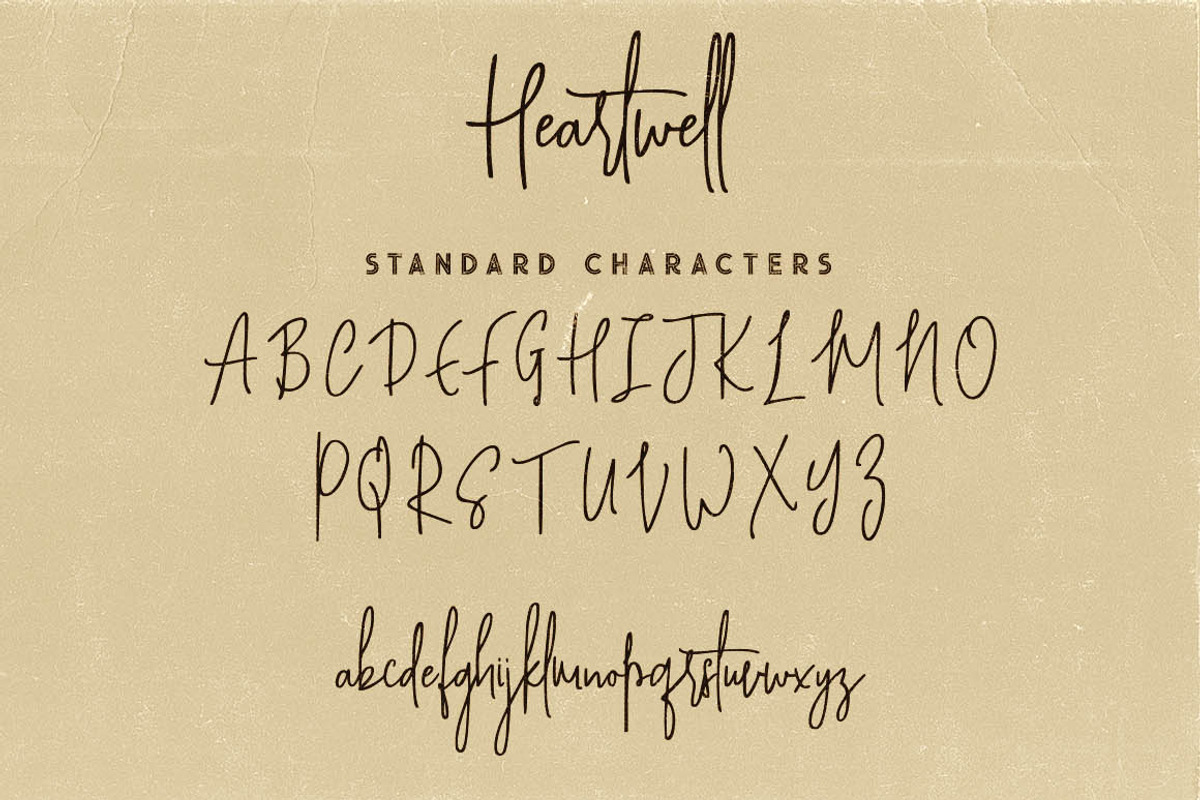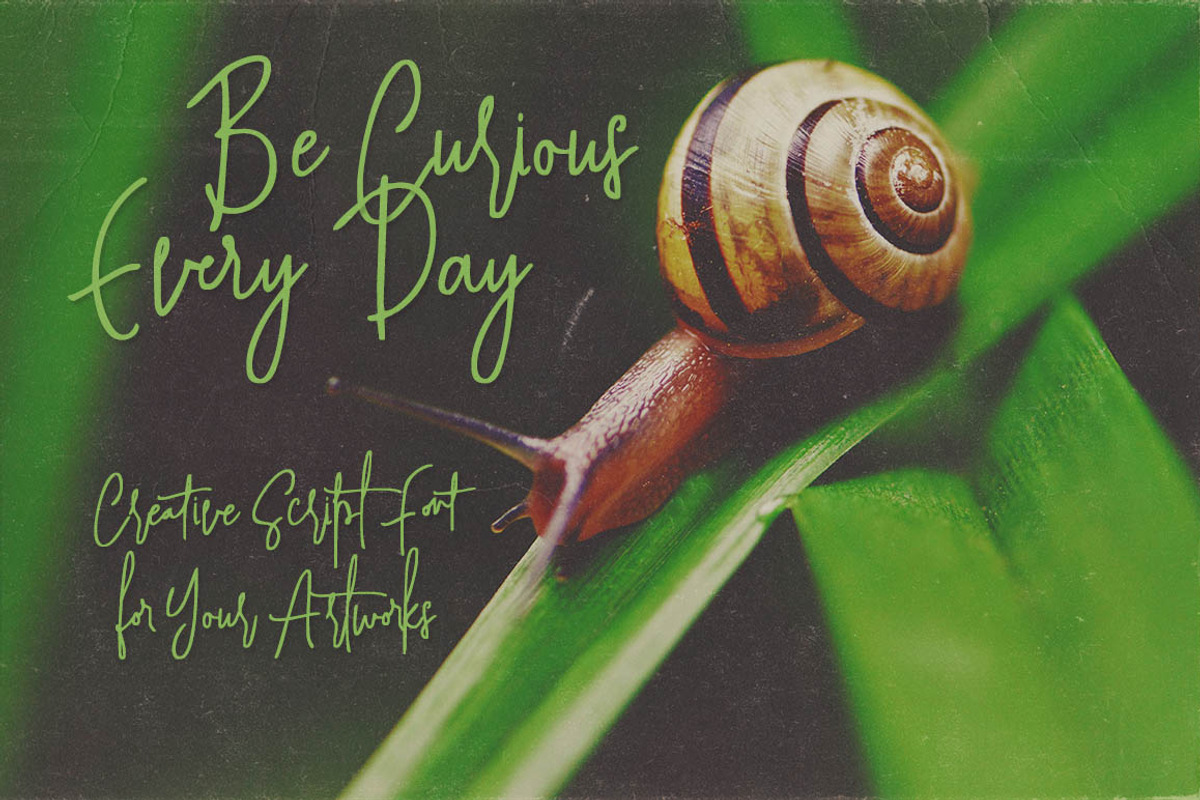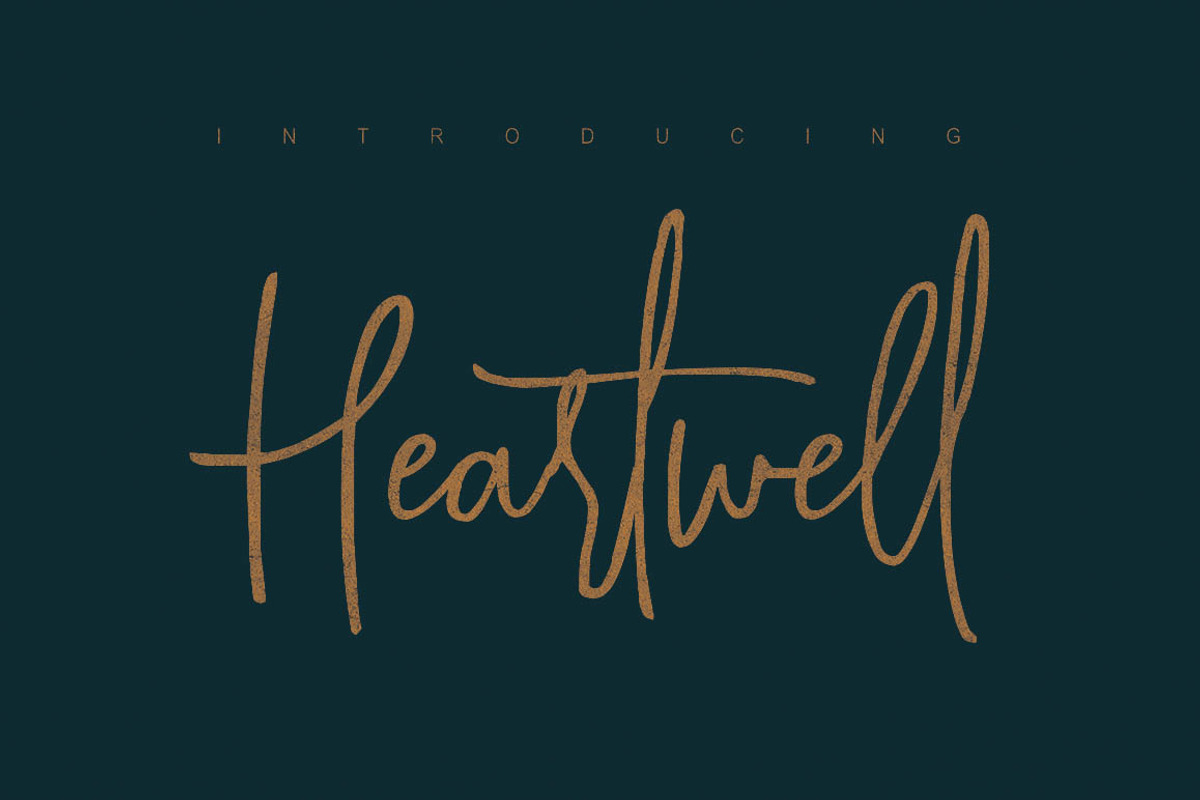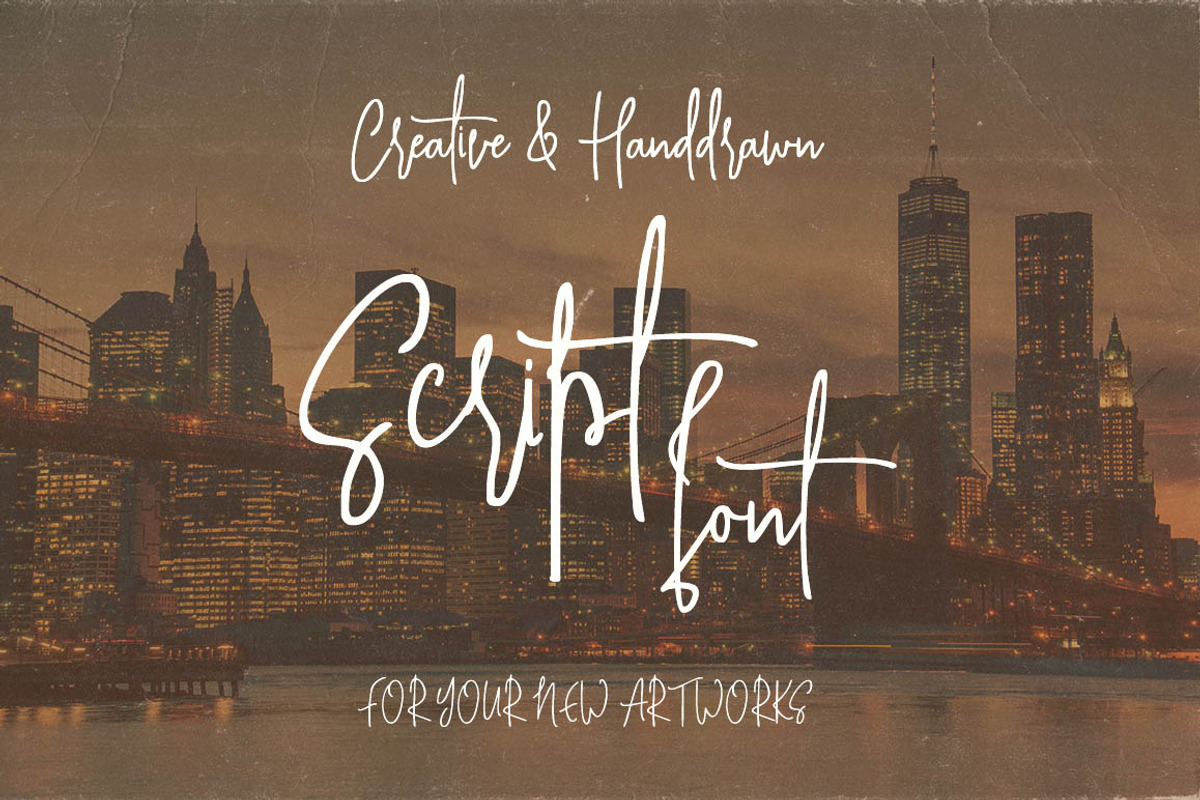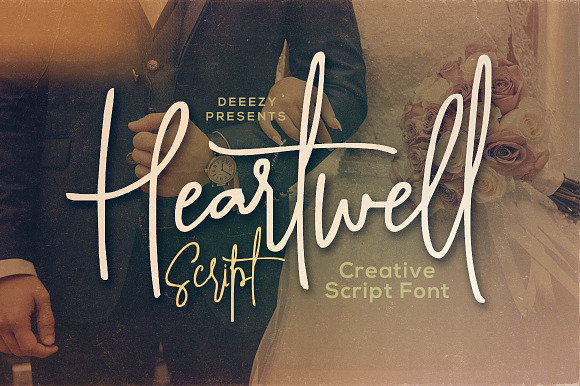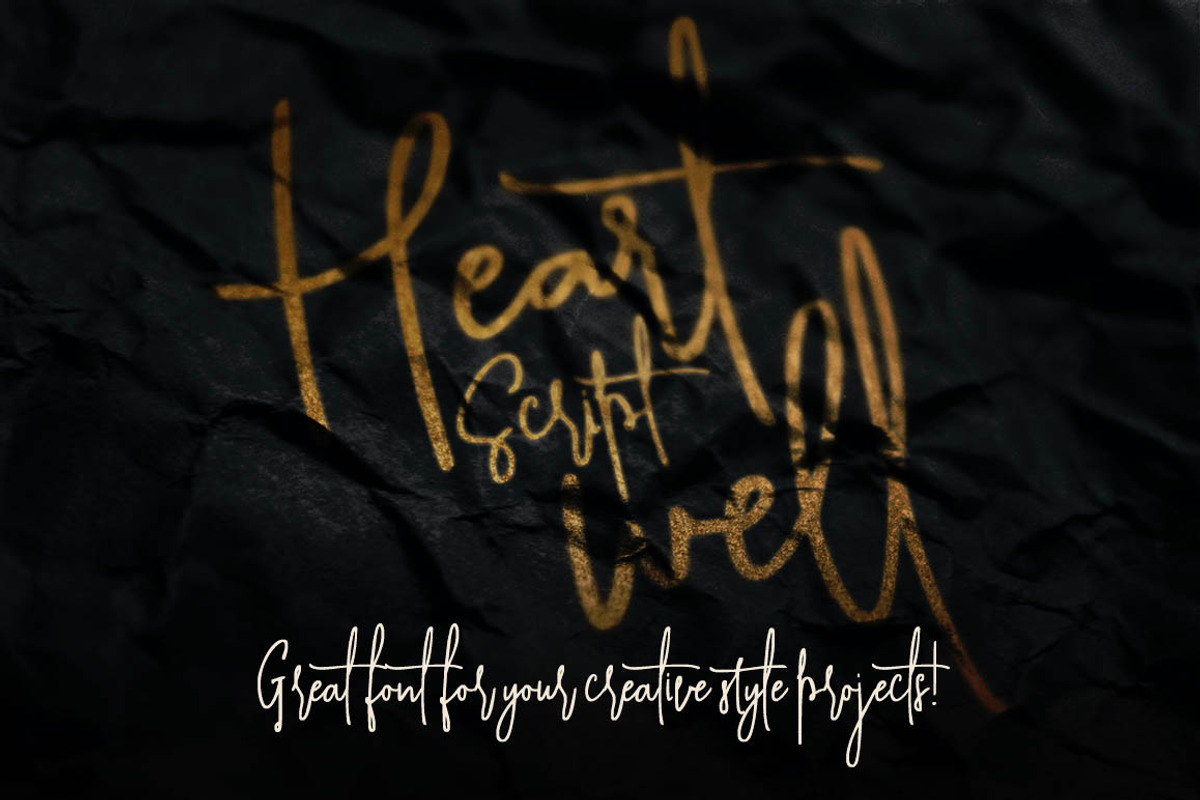
Heartwell Script Font
Crazy dancing baseline and handwritten style script font for your new projects. With multi language support and lot of stylistic alternates & swashes. Enjoy ;)
- With multi language support and lot of stylistic alternates & swashes.
Why Heartwell Script Font is worth a look
Heartwell Script Font by Deeezy fits naturally into Branding, posters, packaging, typography.